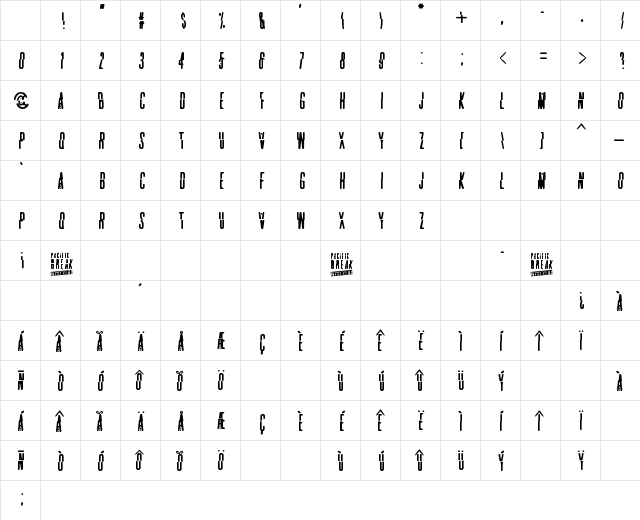
pacific break Regular
Designer: Woodcutter Manero
Design Context for pacific break
pacific break is a composed and adaptable typeface that performs quietly and consistently across a wide range of design contexts.